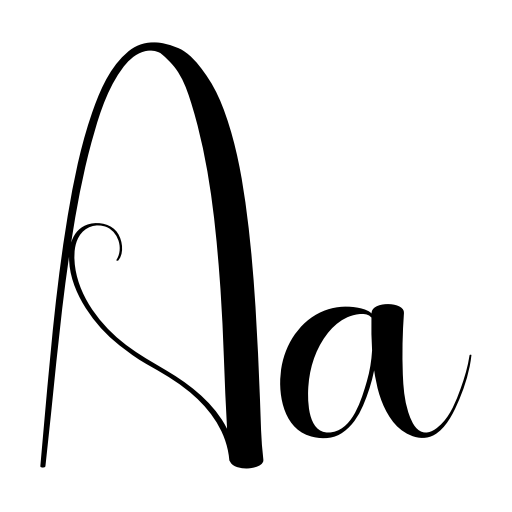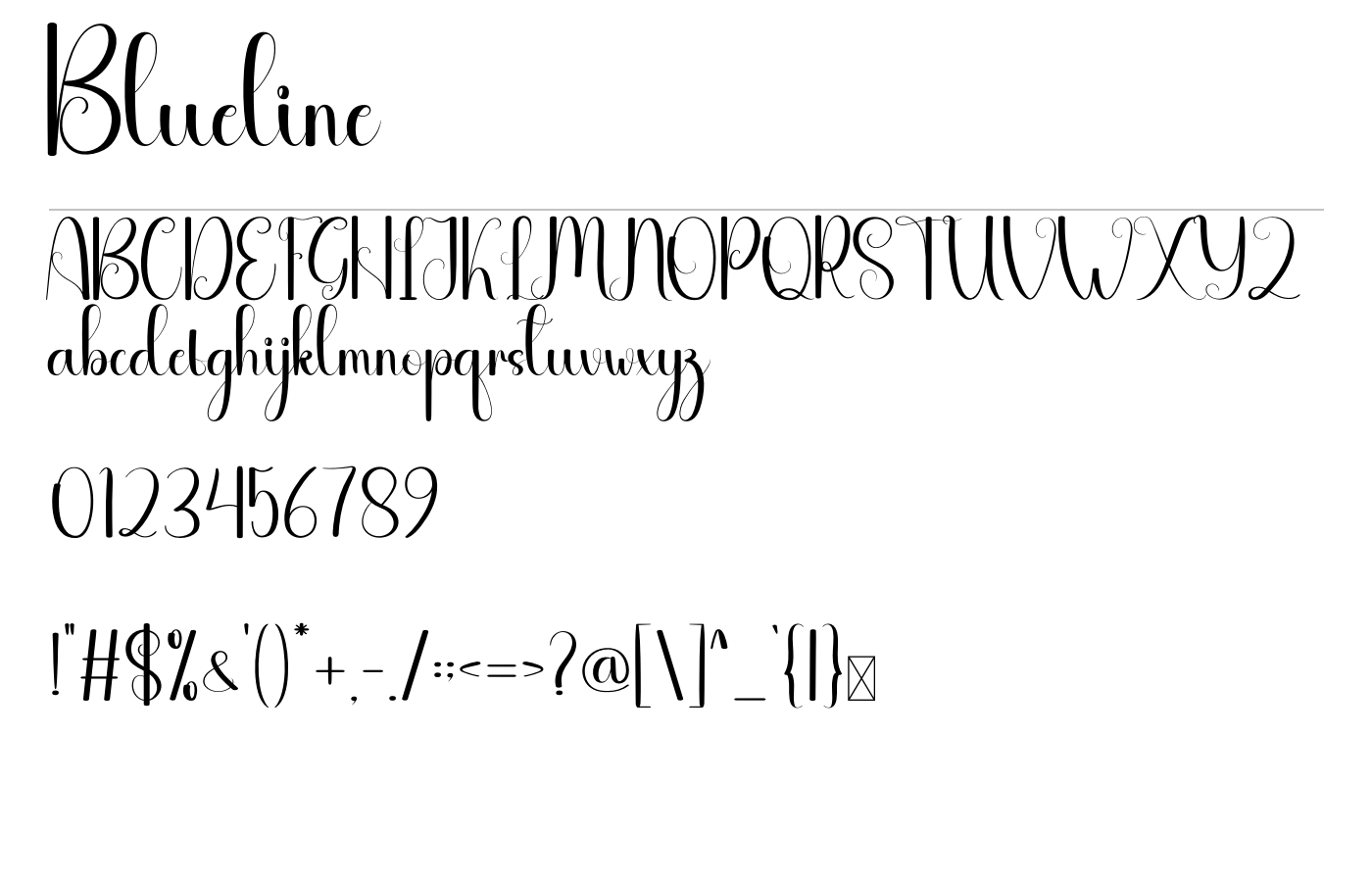
Blueline is a delicate, elegant script font with a slender weight and tall x-height, characterized by graceful swirls and flourishes that give it a sophisticated, decorative feel. Its narrow letterforms and fluid curves make it ideal for stylish branding, invitations, and feminine editorial designs where a refined, artistic touch is desired. This font works best in headlines and logo designs that seek a blend of modern elegance and playful charm.
Blueline Font
About Blueline Font